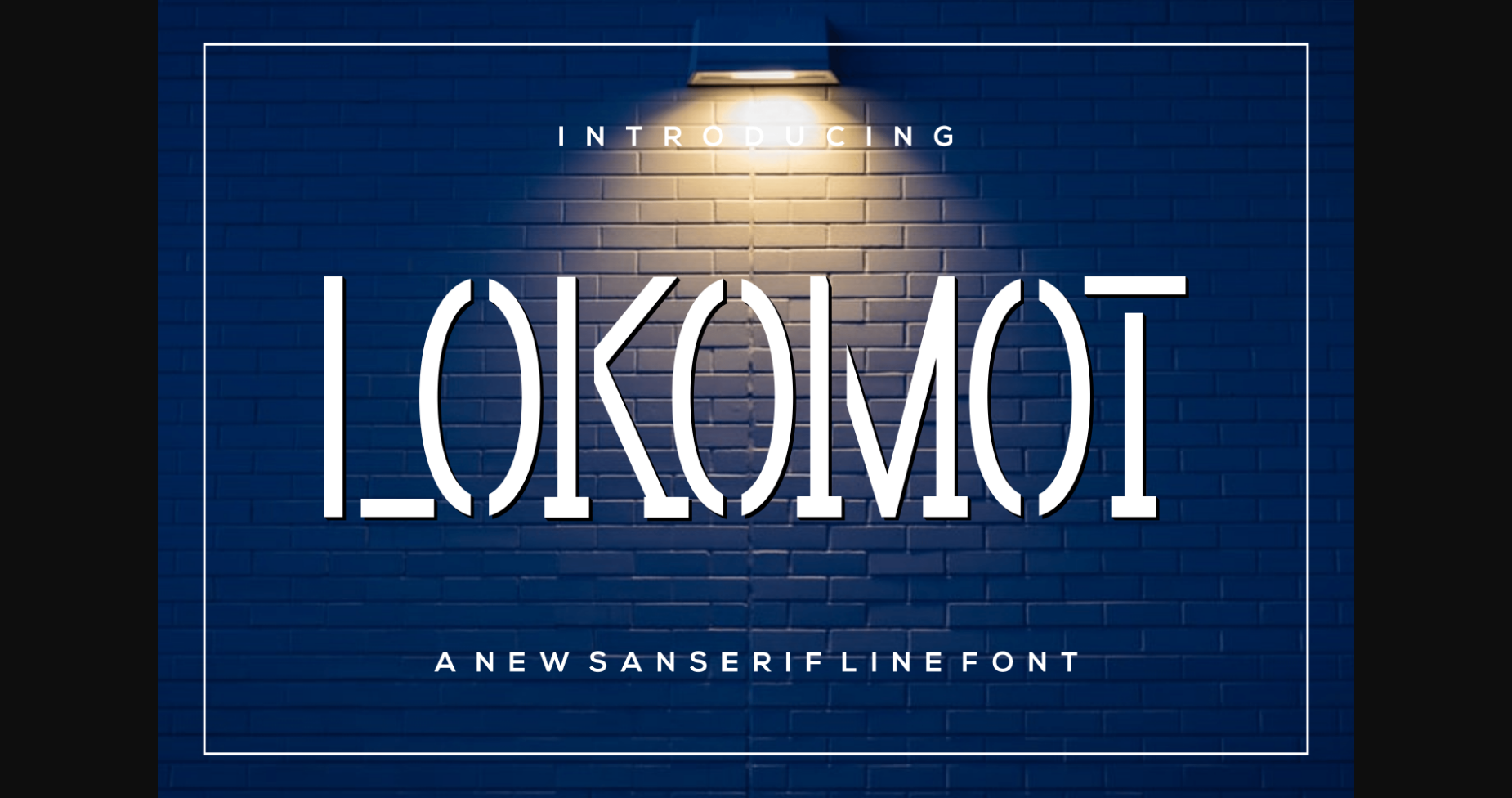
About Lokomot Font
Lokomot is a fun and unique sans serif font. It looks cool on a variety of designs requiring a personalized style, such as wedding invitations, thank you cards, greeting cards, logos, and so on.